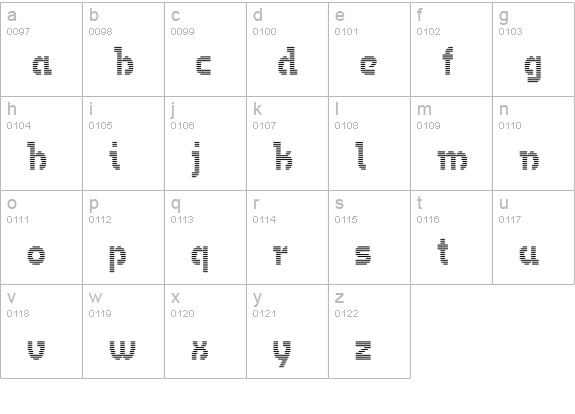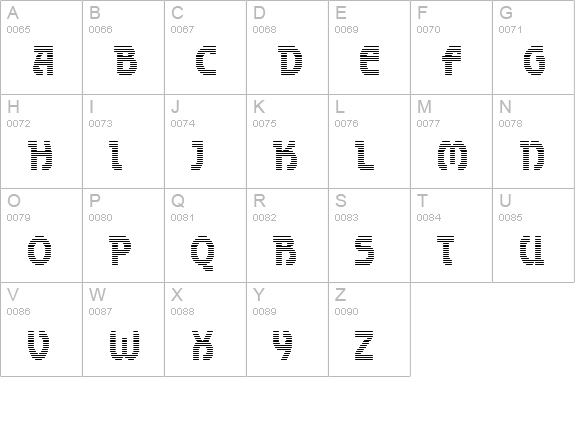
Omega MF Font Details
Introducing Omega MF, a modern and sleek font that exudes sophistication and elegance. With its clean lines and stylish curves, Omega MF is perfect for a wide range of design projects, from branding to editorial layouts. This versatile font is sure to make your text stand out and leave a lasting impression on your audience. The best part? Omega MF is completely free to download at FontsMarket.com. That's right, you can get your hands on this stunning font without spending a penny. So why wait? Enhance your designs with Omega MF today and let your creativity shine!